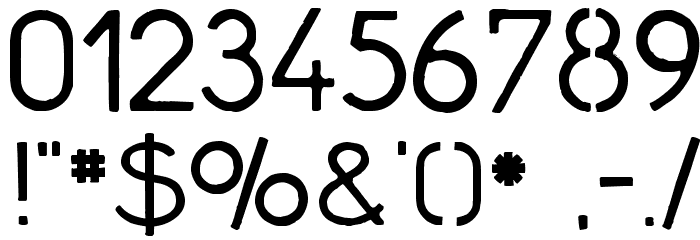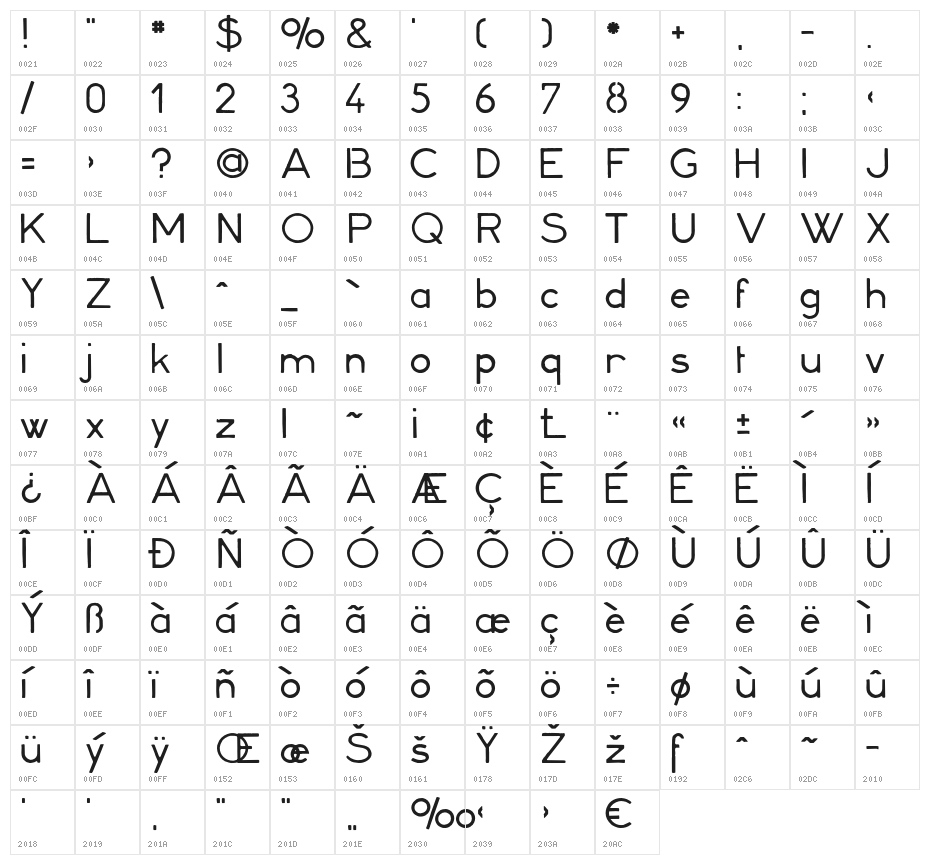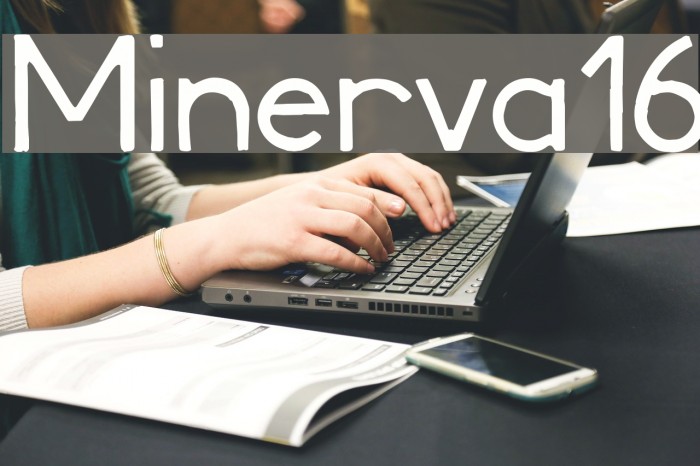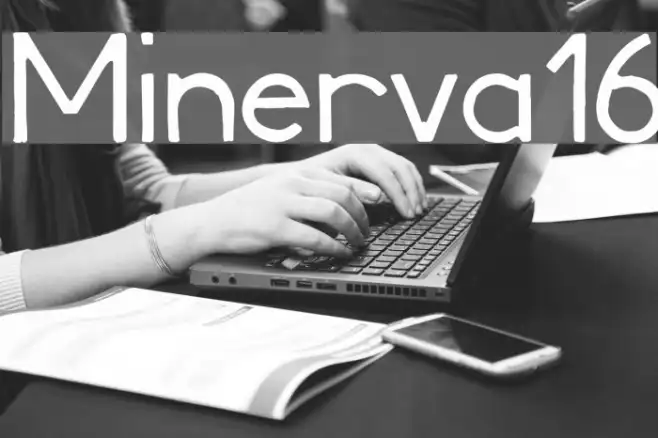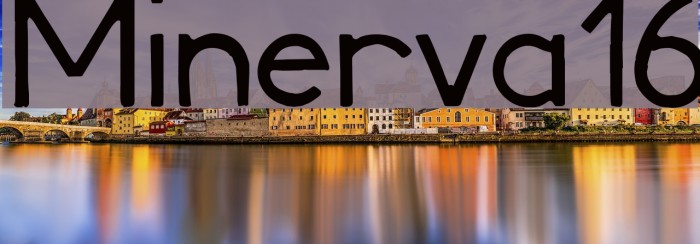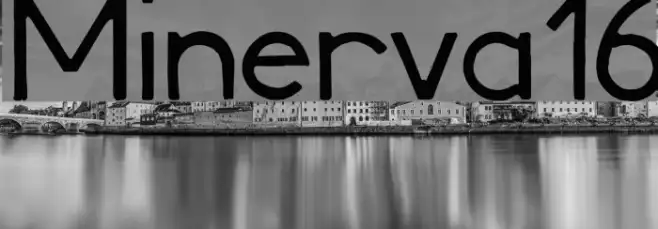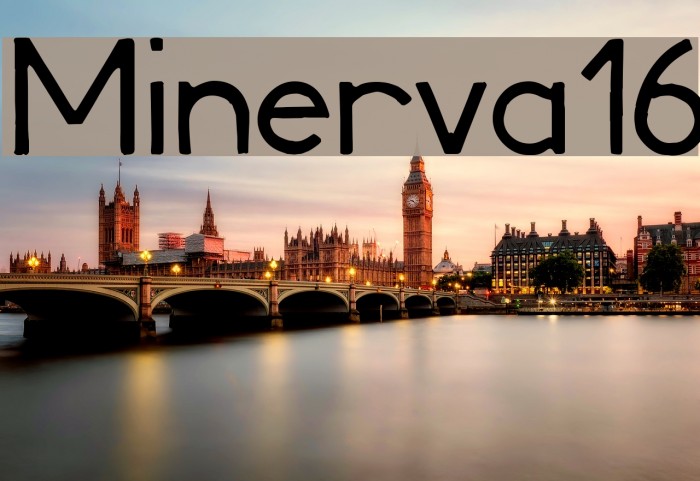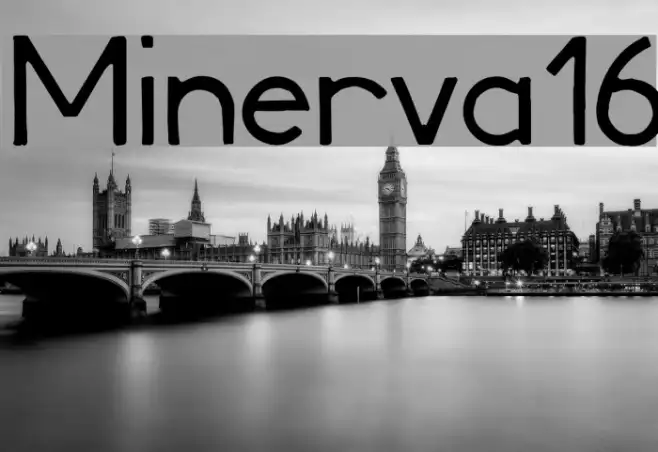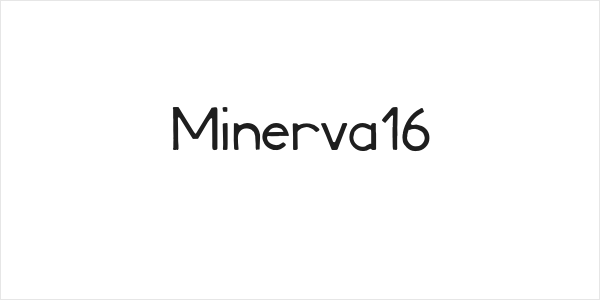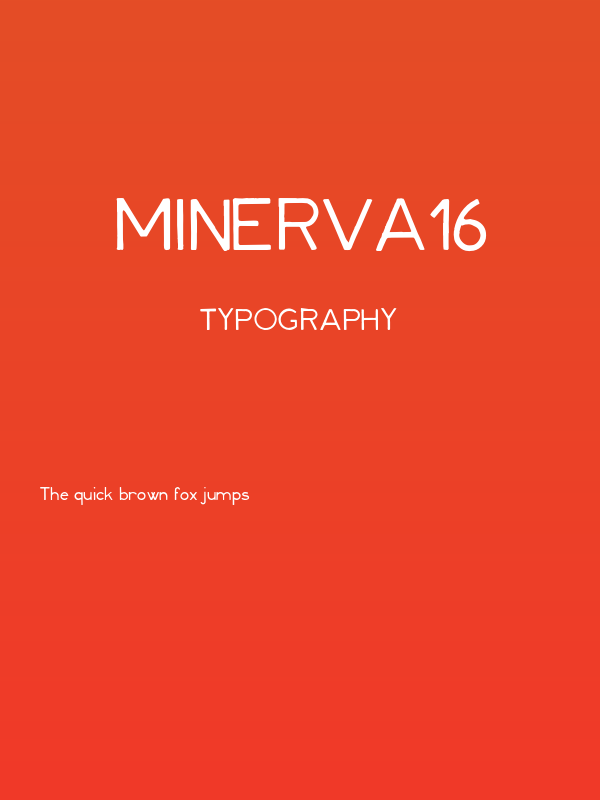
Minerva16 Font
Minerva16 Description
This font features a clean and modern design with rounded edges, giving it a friendly and approachable appearance. The characters are evenly spaced, contributing to its readability. The uppercase letters are bold and prominent, while the lowercase letters maintain a consistent style, ensuring a harmonious look across different text sizes. The numerals are clear and distinct, making them suitable for both digital and print media. Special characters are well-integrated, maintaining the overall aesthetic of the font. Its simplicity and clarity make it versatile for various applications.
| Proposed Projects | Ideal for branding, web design, digital media, and educational materials. |